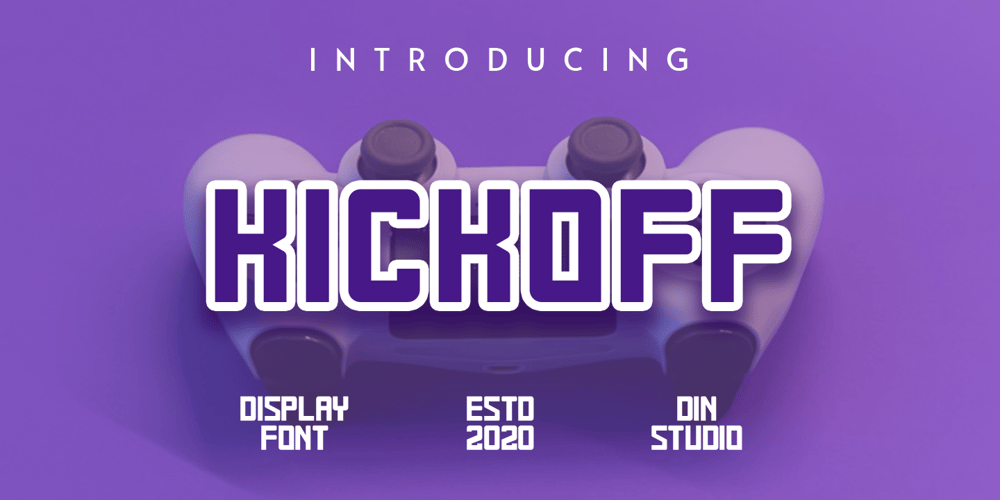
Kickoff
Kickoff font
Kickoff Font Family was designed by Donis Miftahudin and published by Din Studio. Kickoff contains 1 styles and family package options. Introducing Backyard – A Display FontThis awesome typeface with amusing style looks very interesting for loads of different projects and promotions. It is perfect to be used on your website, for your social media branding, Pinterest banners, printed products, and more!Features: Multilingual Support PUA Encoded Numerals and Punctuation Thank you for downloading premium fonts from Din Studio